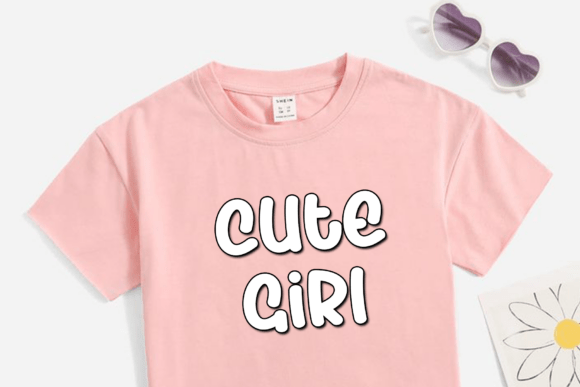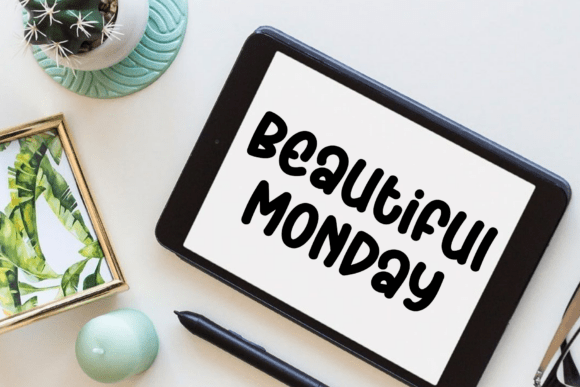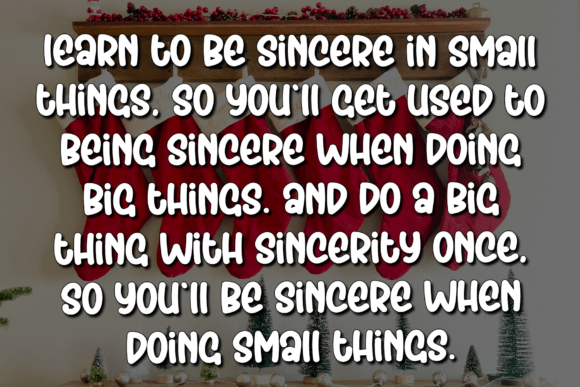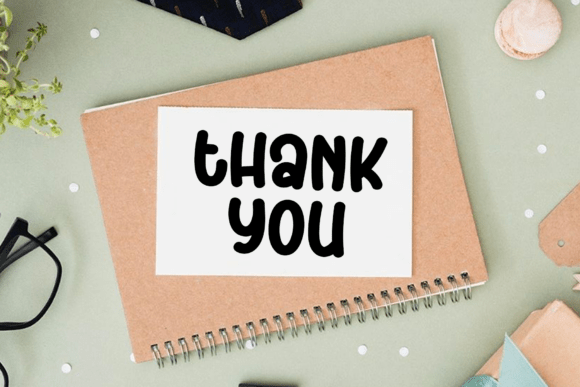
Introduction to Christmas Stocking1 Font
As you sit down to plan your holiday design project, do you find yourself searching for the perfect font to capture the magic of the season? You know, that special something that screams ‘joy’ and ‘cheer’ and makes your designs stand out from the crowd? Look no further than the Christmas Stocking1 Font.
Designed to evoke the warmth and playfulness of the holiday season, this delightful handwritten display font is the ultimate design resource for anyone looking to add a touch of whimsy to their creative project. With its smooth curves and bold shapes, the Christmas Stocking1 Font is not only highly legible but also radiates a charming, family-friendly vibe that’s perfect for holiday cards, festive invitations, and more.
Key Features of Christmas Stocking1 Font
- High-quality design resource ideal for creative projects, especially those related to Christmas and winter themes.
- Unique, hand-drawn design that adds a personal touch to any creative project.
- Perfect for use in digital design, print projects, and web applications, including social media graphics, posters, and invitations.
- Easy to customize and manipulate, making it a valuable asset for designers of all skill levels.
Honest Review: Christmas Stocking1 Font
I recently had the chance to work with the Christmas Stocking1 Font, and I must say it’s been a delightful addition to my design resource collection. The font itself is a beautiful, high-quality asset that’s perfect for any creative project that calls for a festive touch.
What works well is the font’s versatility – it’s not just limited to Christmas-related designs, but can also be used for various other projects that require a playful, whimsical feel. The transparent background is a great feature, allowing for seamless integration into any design. I also appreciate the fact that it’s a free download, making it an excellent option for designers on a budget.
- ✨ Beautiful, high-quality design
- ✨ Versatile font suitable for various creative projects
One limitation is that the font is only available in a single weight, which may limit its use in certain design contexts. However, this is a minor complaint, and overall, I’m thoroughly impressed with the Christmas Stocking1 Font.
Overall, I’m thoroughly impressed with the Christmas Stocking1 Font. It’s a great addition to any design resource collection, and I’d highly recommend it to designers working on holiday-themed or playful projects.
The Christmas Stocking1 Font is ideal for holiday-themed designs, including Christmas cards, invitations, and gift tags. You can also use it for a creative project such as a festive logo or branding.